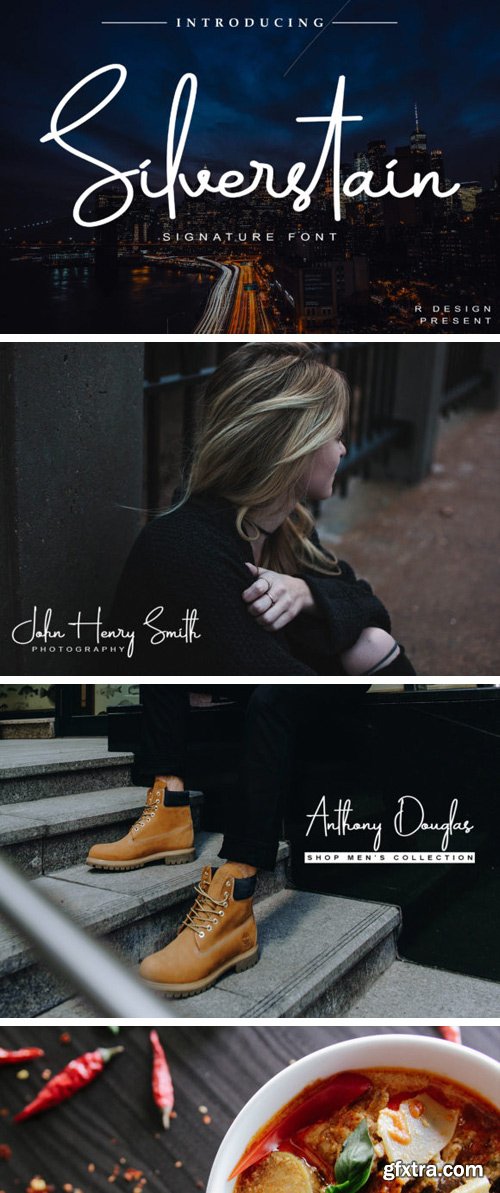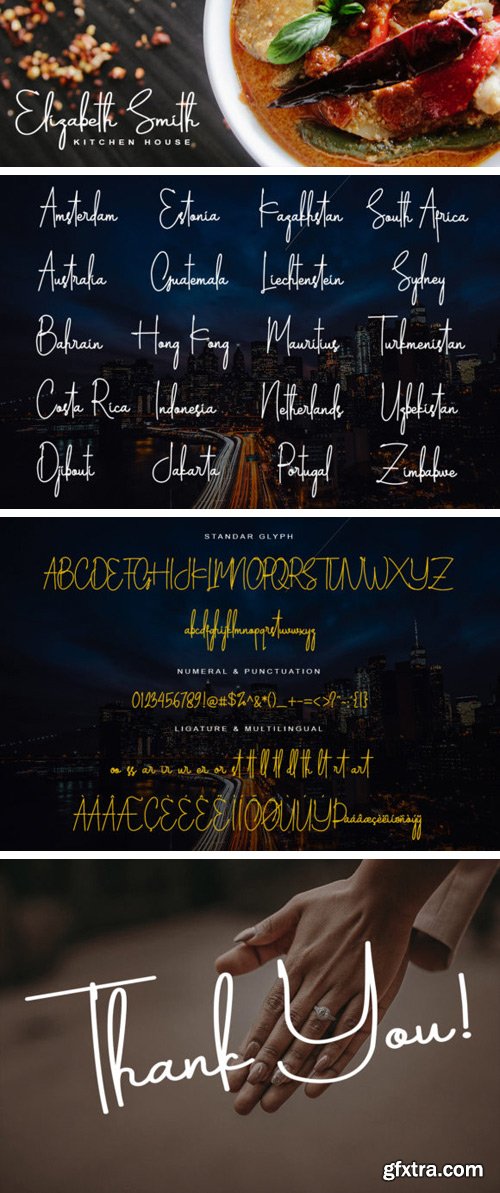
Silverstain Font
The Silverstain is a striking signature font. It has a natural handwritten feel and is perfect for adding a personal touch to your designs. It can be used for logos, fashion desings, magazines, posters, quotes, and much more!